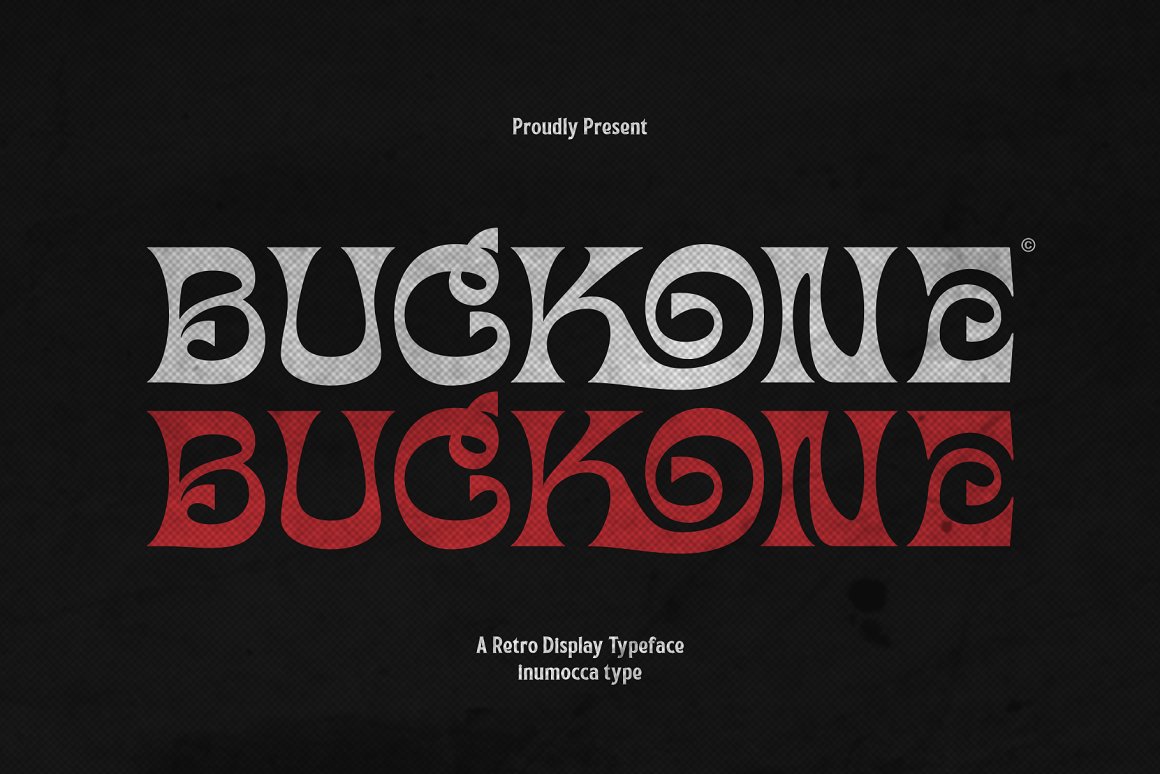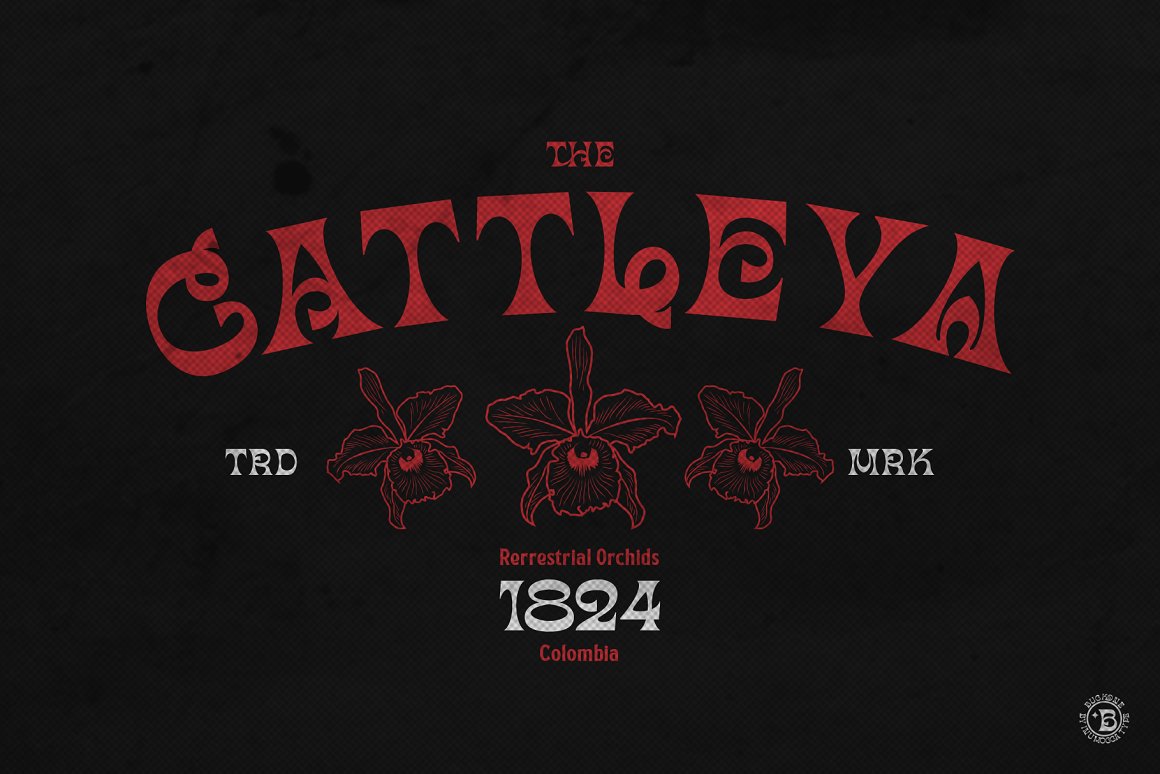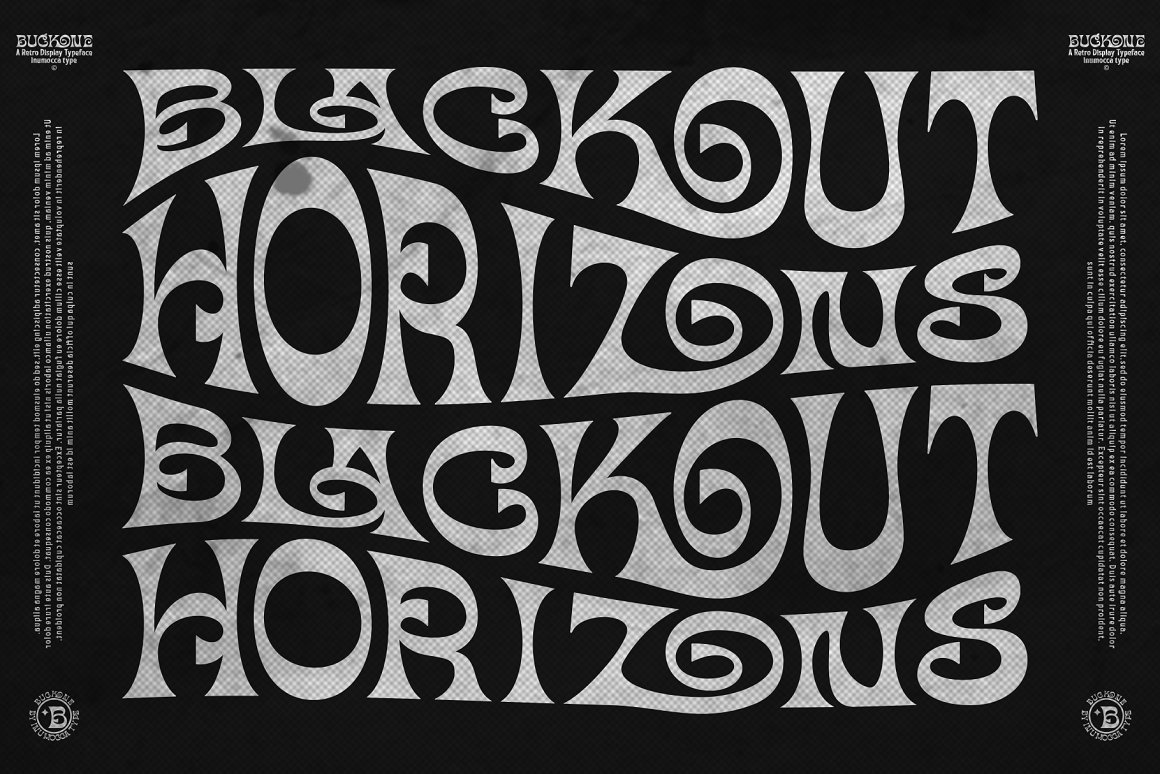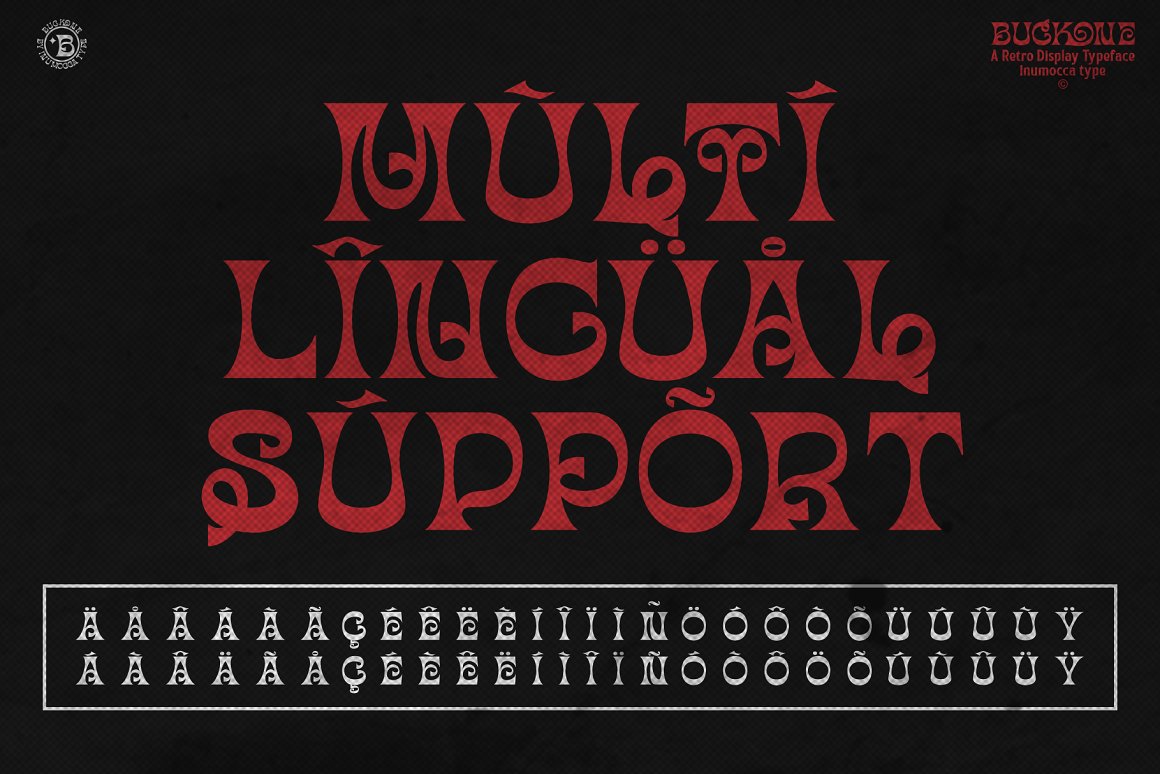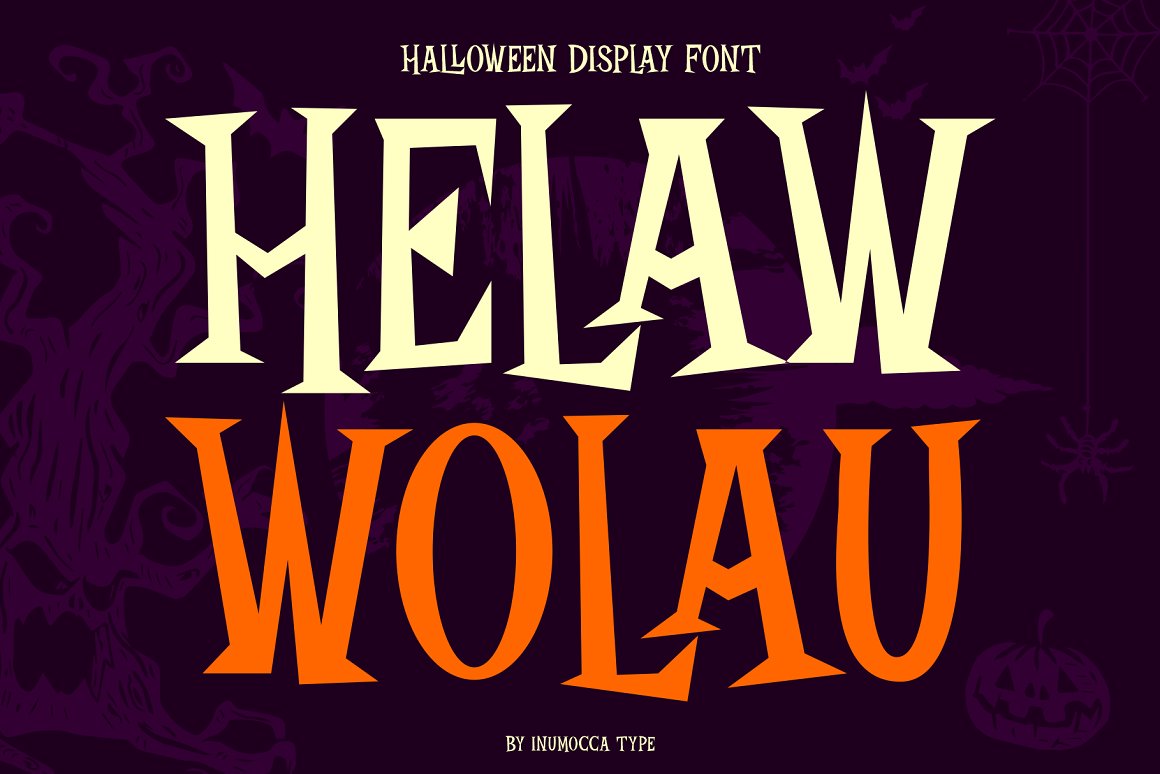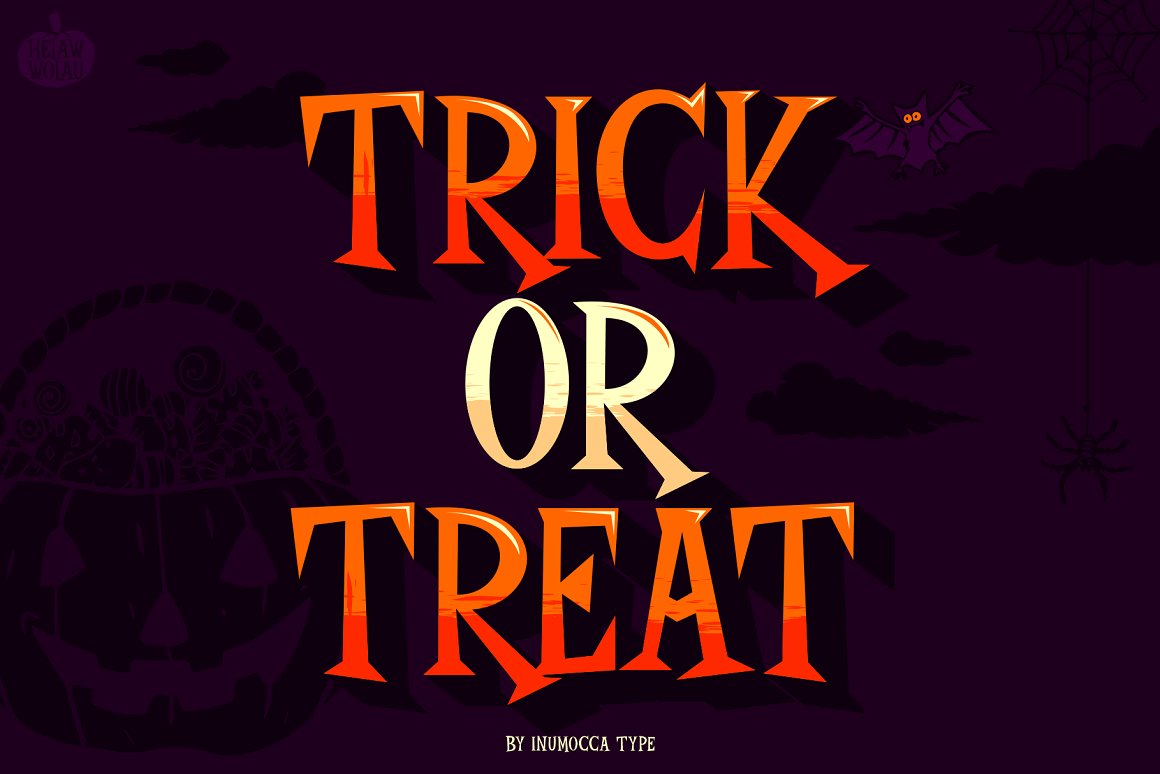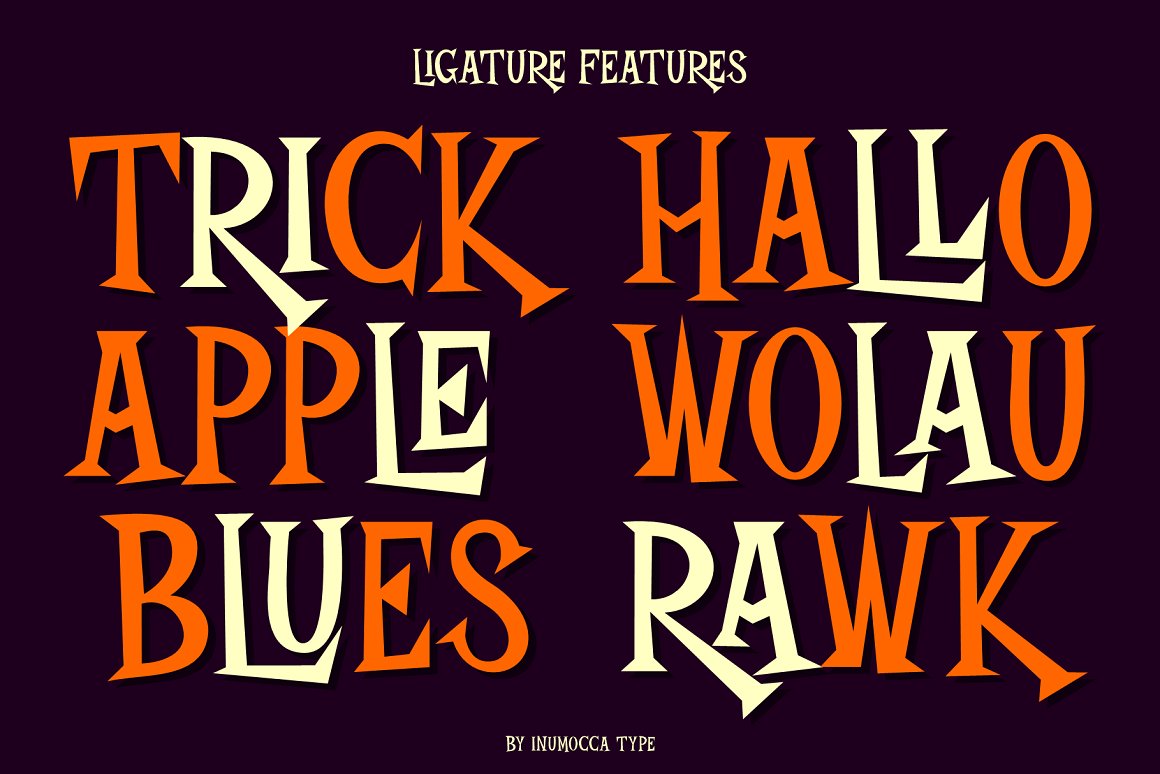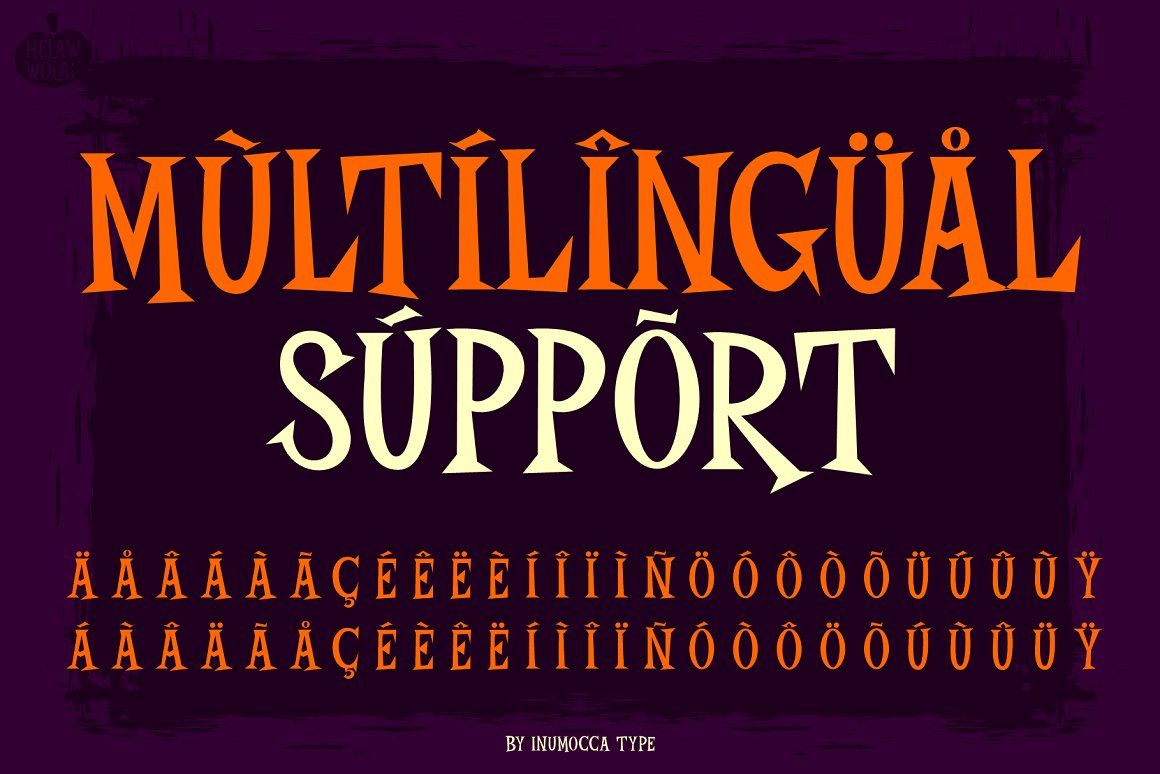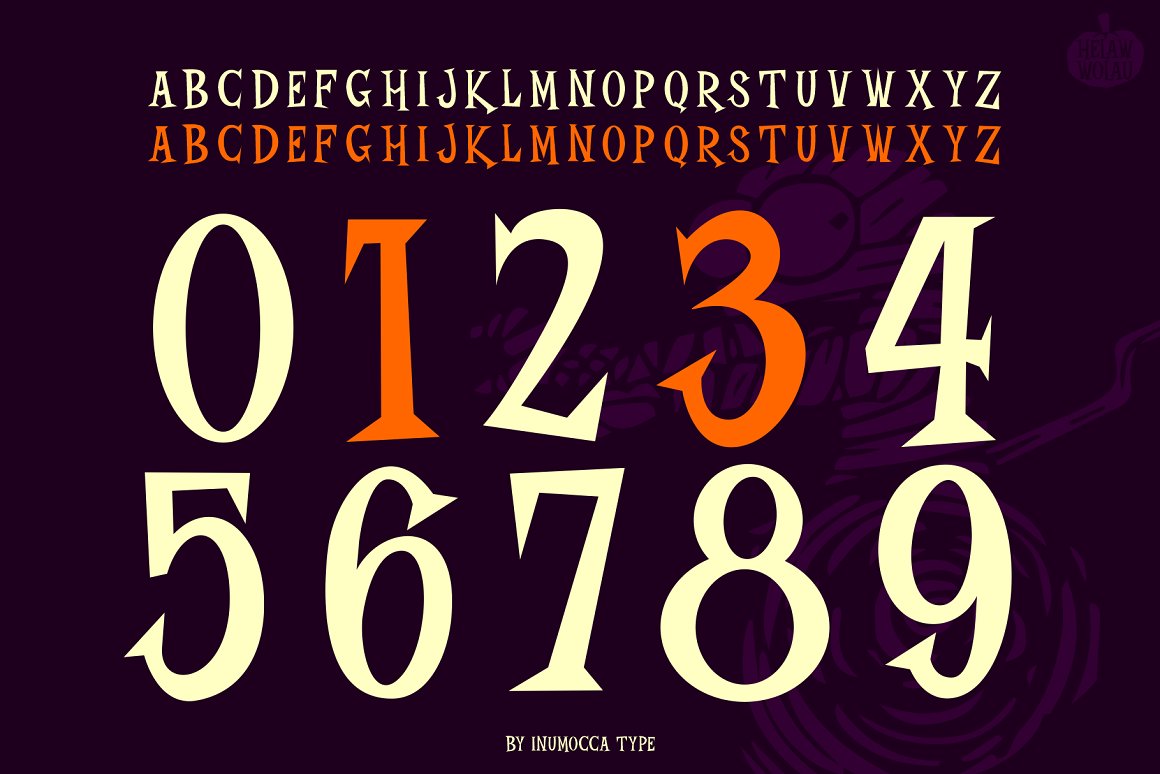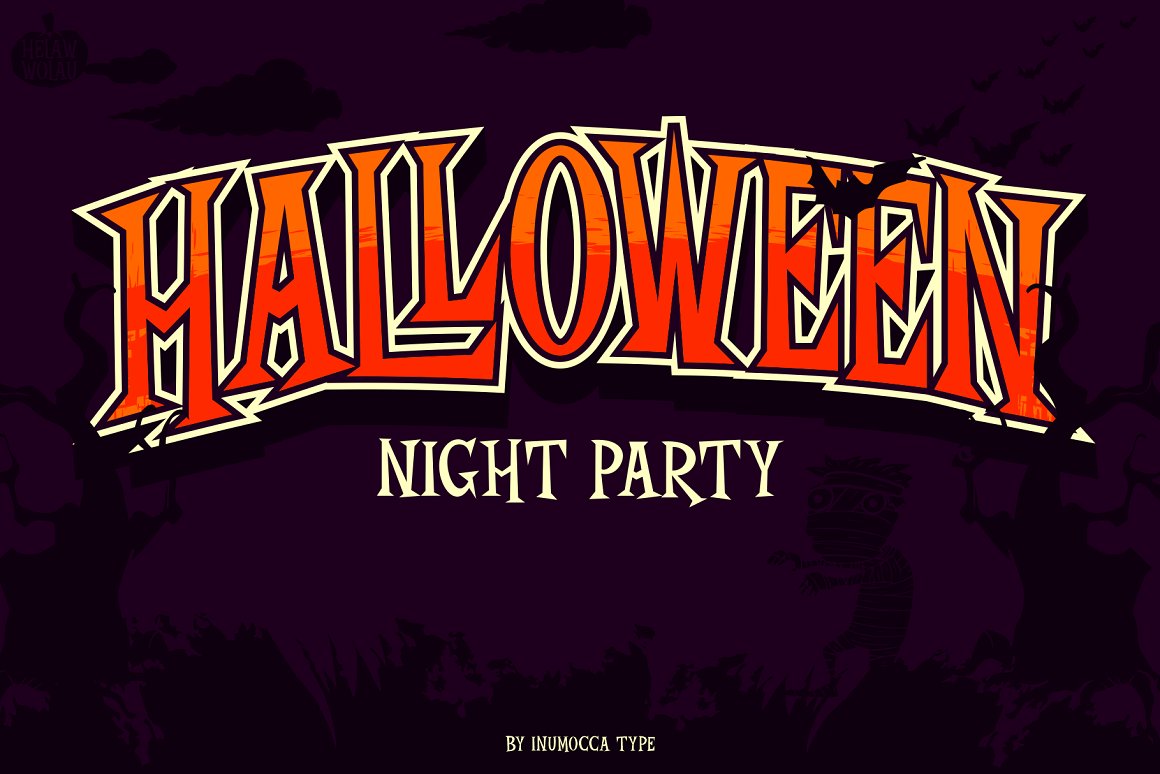
12 Retro and Creative Font Sets
Brand new unique & creative style typography bundle with 12 multilingual display font sets! All these fonts are trendy, decorative, classy & elegant so you can use it for any kind of retro or artistic style branding projects or T-shirt designs 😉
12 Retro and Creative Font Sets from inumocca contains 19 retro, unique & decorative display fonts for your new projects! Don’t miss this creative & vintage style font & branding bundle 😉
• 12 retro & decorative display fonts sets with 19 fonts for your new projects!
• Great for any branding projects, posters or T-shirt designs…
• Multilingual support, stylistic alternates & ligatures
12 retro & decorative display fonts sets with 19 fonts for your new projects!
Trendy, elegant, decorative & retro style display fonts for your retro projects. Elegant, artistic and unique style on these fonts will be great for any branding project. Lot of alternates and ligatures will help you to create unique and original logo design or website header! Enjoy 🙂
• Multilingual support
• Lot of alternate characters
• Lot of ligatures
• Great for retro branding projects!
• 12 retro & decorative display fonts sets with 19 fonts for your new projects!